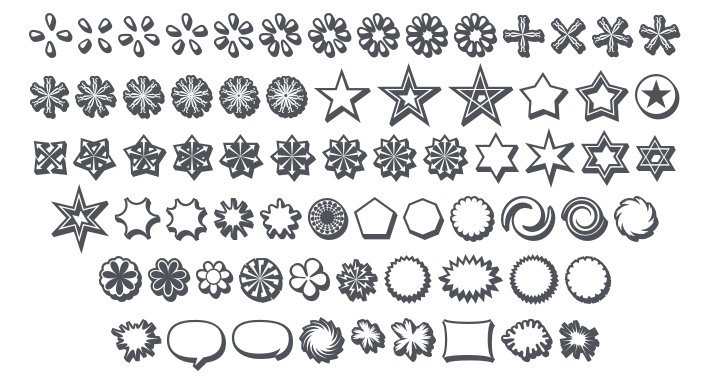
Asterisp Font Family
About Asterisp
Asterisp is a rich collection of 4- to 13-sided asterisks in a wide variety of styles including flashes, flowers, stars, splats, snowflakes, and balloons, with outlined and 3D variations. Perfect for decorative borders, festive layouts, editorial accents, and anywhere you need ornamental star or burst symbols.